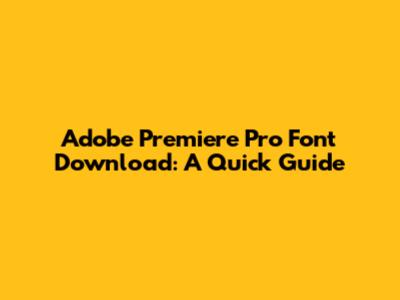
- Google Fonts: This is like the holy grail of free fonts. Google Fonts offers a massive library of open-source fonts that are free to use for personal and commercial projects. The fonts are well-designed, easy to download, and compatible with Adobe Premiere Pro. Plus, you can easily preview the fonts and see how they look in different styles and sizes. The best part? They're all optimized for web use, so they look great on screens of all sizes.
- Font Squirrel: Font Squirrel is another fantastic resource for free fonts. They carefully curate their collection, ensuring that all fonts are of high quality and legally safe to use. You can find a wide variety of styles, from classic serif fonts to modern sans-serif fonts. Font Squirrel also offers a handy font identifier tool that helps you find fonts similar to ones you already like.
- DaFont: DaFont is a hugely popular site with a massive collection of fonts. However, you need to be extra cautious here. While many fonts are free for personal use, some require a commercial license. Always double-check the licensing terms before using a font from DaFont in a commercial project. Despite the licensing caveats, DaFont is a great place to discover unique and creative fonts that you won't find anywhere else.
- Create a Title or Text Layer: Go to the "Graphics" workspace. Click on the "New Layer" icon in the Essential Graphics panel and select "Text". This will create a new text layer on your timeline.
- Type Your Text: Type the text you want to display in your video. This could be a title, a subtitle, a lower third, or any other text element.
- Choose Your Font: In the Essential Graphics panel, you'll see a font selection dropdown menu. Click on it and scroll through the list to find the font you want to use. Your newly installed fonts should be listed here.
- Adjust Font Properties: Use the various controls in the Essential Graphics panel to adjust the font's size, color, spacing, and other properties. Experiment with different settings to achieve the look you want. You can also add effects like shadows, outlines, and glows to make your text stand out.
- Animate Your Text (Optional): Premiere Pro offers a variety of animation tools that you can use to bring your text to life. You can animate the text's position, scale, rotation, and opacity to create dynamic and engaging titles and lower thirds.
- Font Looks Different in Premiere Pro: Sometimes, a font might look different in Premiere Pro than it does in other applications. This could be due to differences in rendering engines or font hinting. Try adjusting the font's properties in the Essential Graphics panel to see if you can improve its appearance.
- Font is Pixelated or Blurry: If a font looks pixelated or blurry, it could be due to a low resolution or improper scaling. Make sure your sequence settings are set to a high enough resolution and that your text layer is not being scaled up too much.
Hey guys! Ever felt like your video projects in Adobe Premiere Pro are missing that special something? Chances are, the right font could be the missing piece! Finding and downloading cool fonts for your projects doesn't have to be a headache. Let’s dive into how you can beef up your font library for Adobe Premiere Pro, making your videos pop and captivate your audience.
Why Fonts Matter in Video Editing
Fonts are more than just letters; they're a key element of visual communication. The fonts you choose can significantly impact the mood, tone, and overall message of your video. A playful, bubbly font might be perfect for a children's video, but totally out of place in a serious documentary. Likewise, a sleek, modern font can add a touch of sophistication to a corporate video, while a vintage font might enhance a historical piece.
When selecting fonts for your video projects, think about your target audience and the message you want to convey. Are you trying to evoke excitement, trust, nostalgia, or something else entirely? Your font choice should align with these goals. Consistency is also crucial. Using too many different fonts can create a cluttered and unprofessional look. Stick to a limited palette of fonts that complement each other and maintain a cohesive visual style throughout your video.